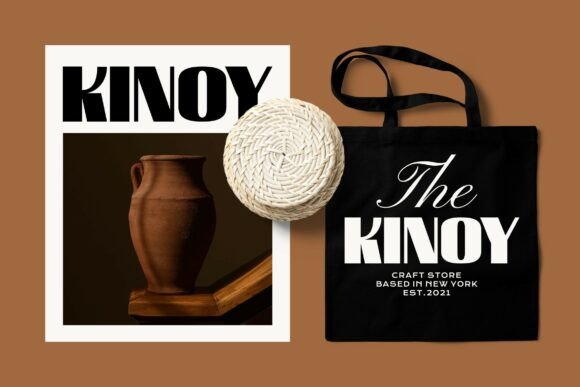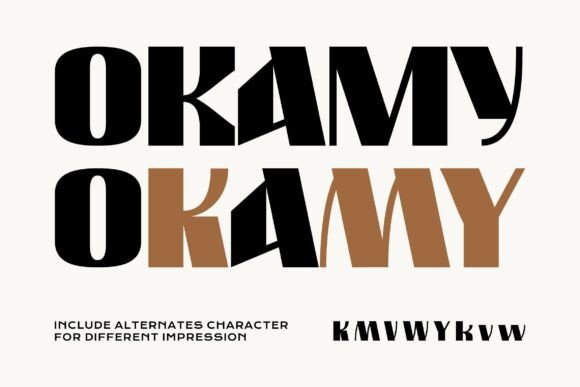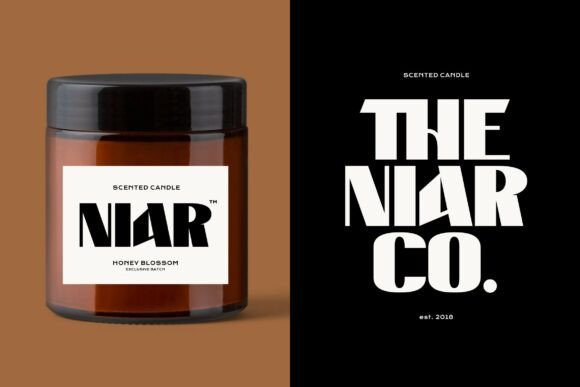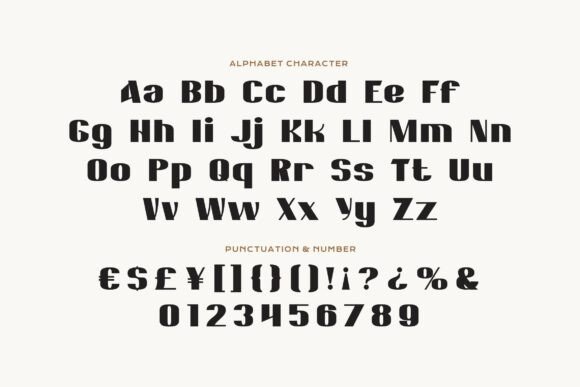
Introduction to Hero Kawig Font
Hero Kawig is a hefty, chunky display font that blends modern minimalism with a retro swagger flair.
Its slab inspired letterforms feature carefully placed negative cuts and sharp terminals, creating a dynamic, kinetic rhythm that gives each character a distinctive โstencil meets sculptureโ vibe Perfect for headlines, logos, packaging, signage, posters, and editorial spreads, itโs especially well suited to beauty product branding, boutique identities, craft goods labels, tote bag branding, social media banners, and more.